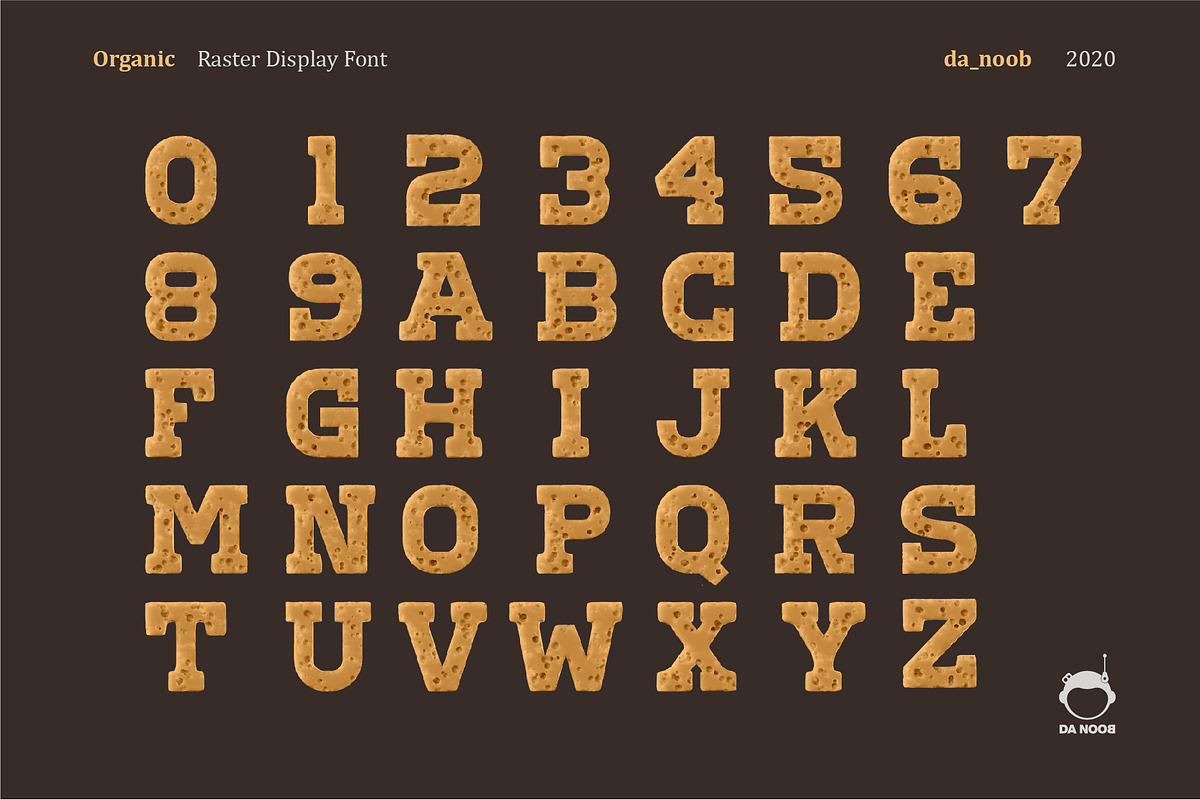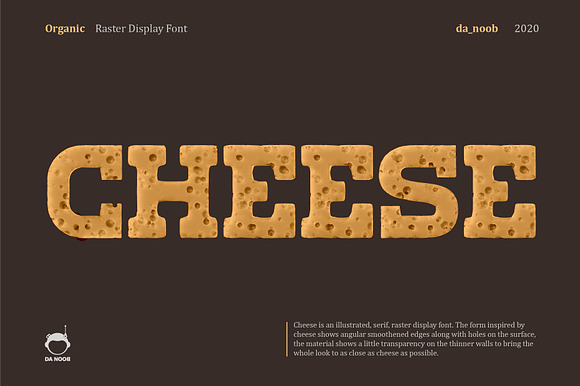
Cheese - Raster display font
Cheese is an illustrated, serif, raster display font. The form inspired by cheese shows angular smoothed edges along with holes on the surface, the material shows a little transparency on the thinner walls to bring the whole look to as close as cheese as possible.
Thought the font has distinct use cases depending on the creator, it can be best used for headings, short words and illustrative typographic projects.
PLEASE NOTE that this is a display font.
1. The font does not contain special characters and small alphabets.
2. Each alphabet can be scaled to 1500px 1500px without loosing the quality.
4. The font comes in greyscale so that you can color it according to your need.
6. This is not a vector font.